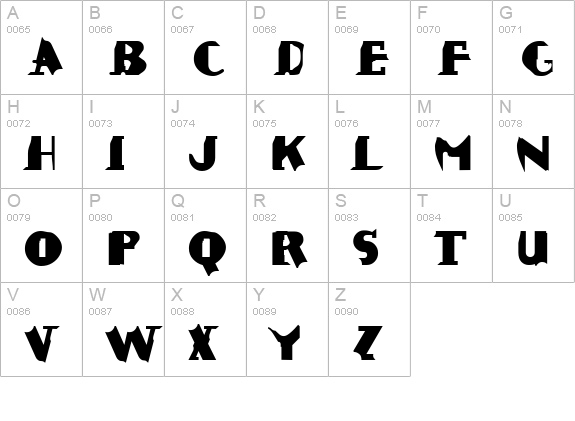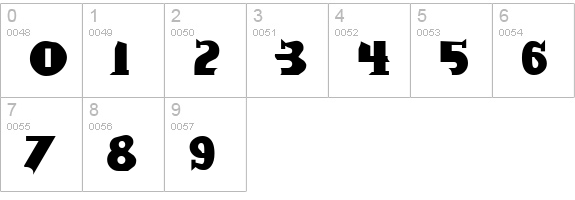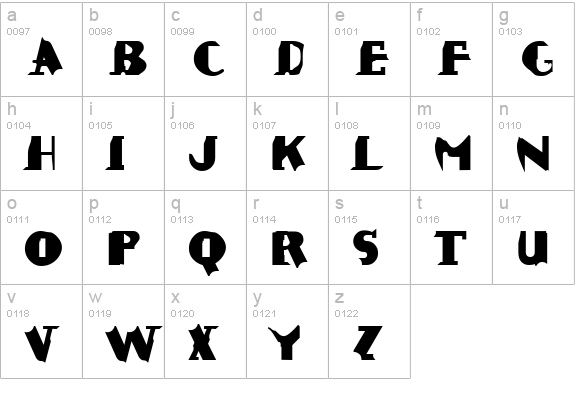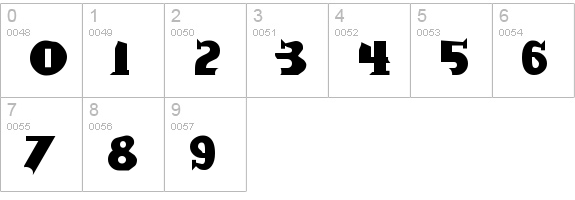
Praegnant Font Details
Praegnant font is a beautifully crafted typeface that exudes elegance and sophistication. Its sleek lines and unique curves make it perfect for adding a touch of class to any design project. With a timeless appeal and modern twist, Praegnant font is sure to make a statement. The best part? Praegnant font is available for free download at FontsMarket.com. This means you can easily access this stunning font and use it in your projects without any hassle. Don't miss out on the opportunity to elevate your designs with the exquisite Praegnant font, now freely available for you to enjoy.